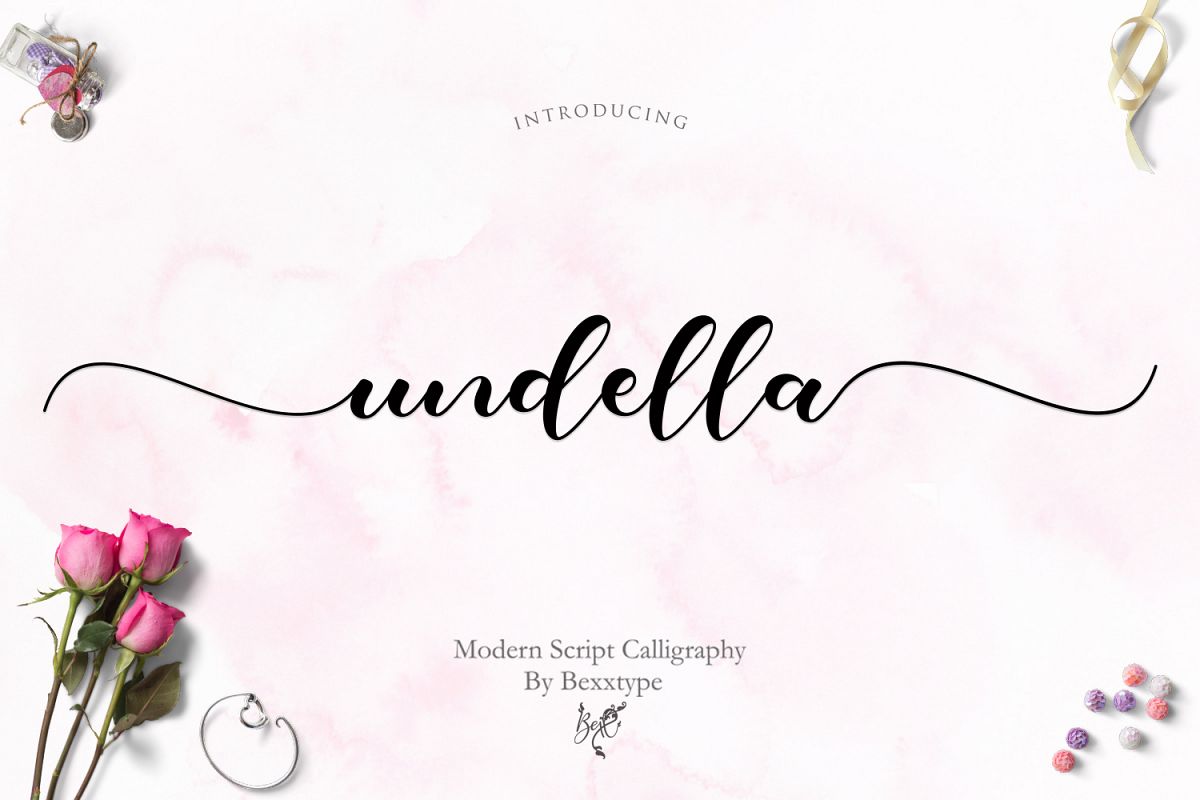
Undella Script
Undella Script a new fresh & modern script with a handmade calligraphy style, decorative characters and a dancing baseline! So beautiful on invitation like greeting cards, branding materials, business cards, quotes, posters, and more!!
Undella Script come with 402 glyphs. The alternative characters were divided into several Open Type features such as Swash, Stylistic Sets, Stylistic Alternates, Contextual Alternates. The Open Type features can be accessed by using Open Type savvy programs such as Adobe Illustrator, Adobe InDesign, Adobe Photoshop Corel Draw X version, And Microsoft Word. And this Font has given PUA unicode (specially coded fonts). so that all the alternate characters can easily be accessed in full by a craftsman or designer.